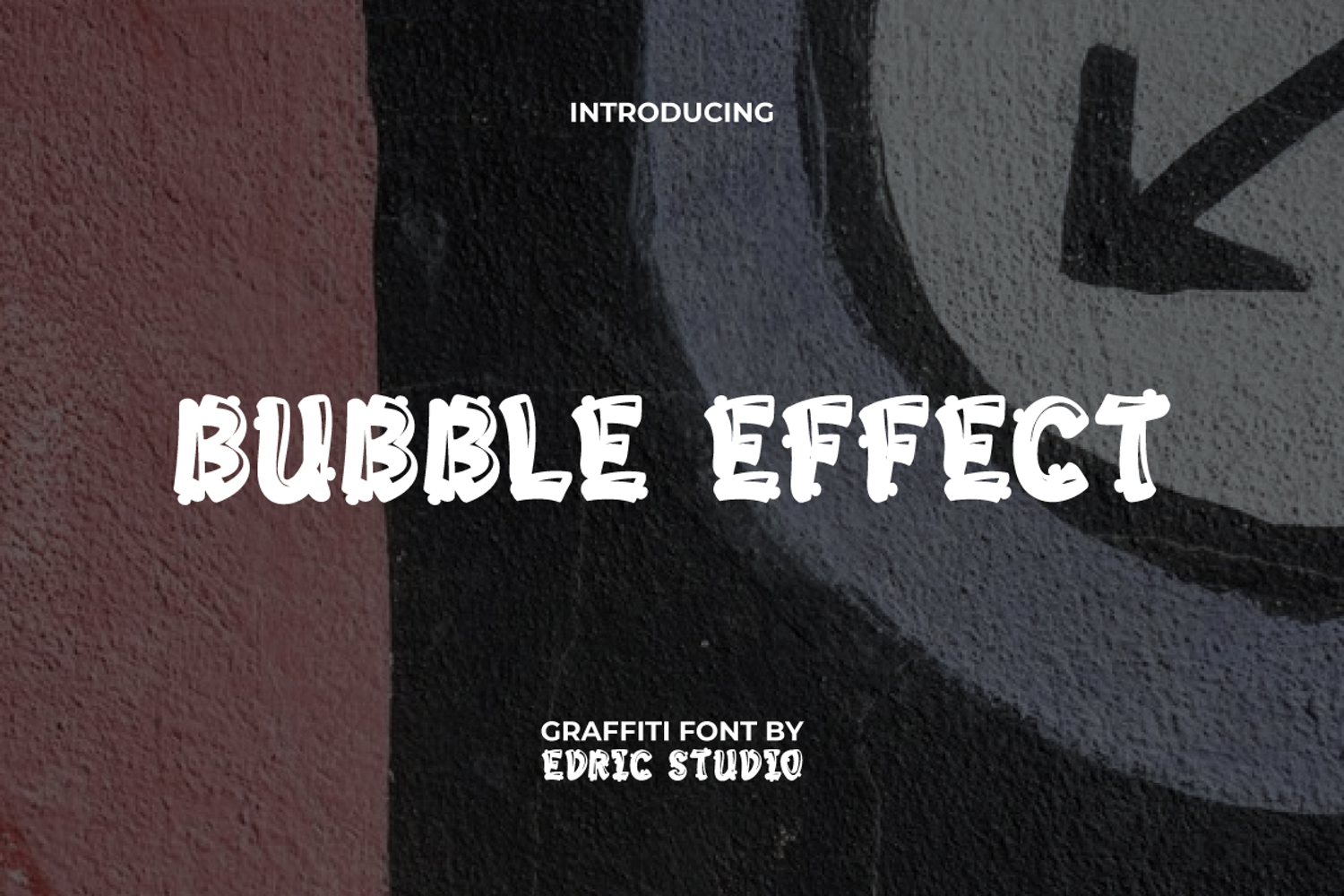
Bubble Effect Font
Bubble Effect Font is a cool cartoon graffiti marker style font inspired by some street arts. This fun urban style font is perfect for designs like billboard, blogs, branding, brochure, poster, screen print, social media, stationery, sticker, website and much more.
Bubble Effect Graffiti Font includes a complete set of ALL CAPS LETTERS for Upper and Lower Case, Numbers, Punctuation and Symbols. The graffiti unique bubbled and outlined font characters will be perfect for advertisements, graphic design, printing, publishing, skateboard designs, t-shirts, etc. Create any creative look with this amazing font and notice how it stands out!
Bubble Effect Font also supports multilingual characters which are ready to use either on Windows or Mac machines with a simple installation. Combine different characters for a bespoke, handcrafted feel. All of these characters are available through the glyph panel, moreover each letter has its own unicode (PUA) so you can access all the characters easily, Contact us if you have any questions.